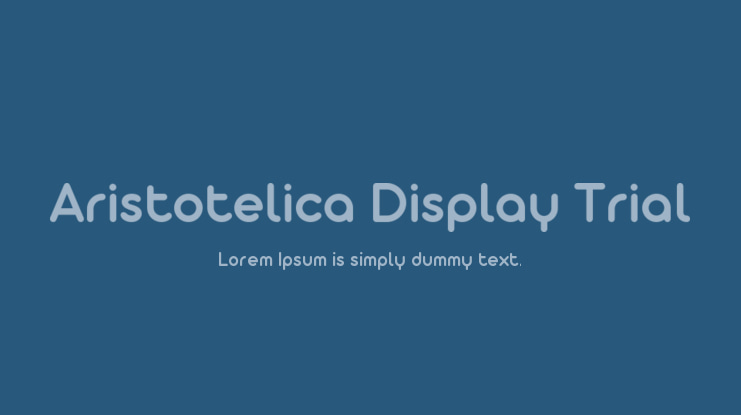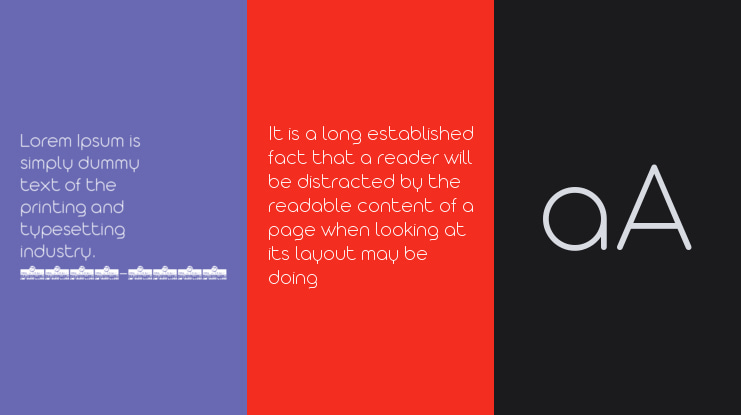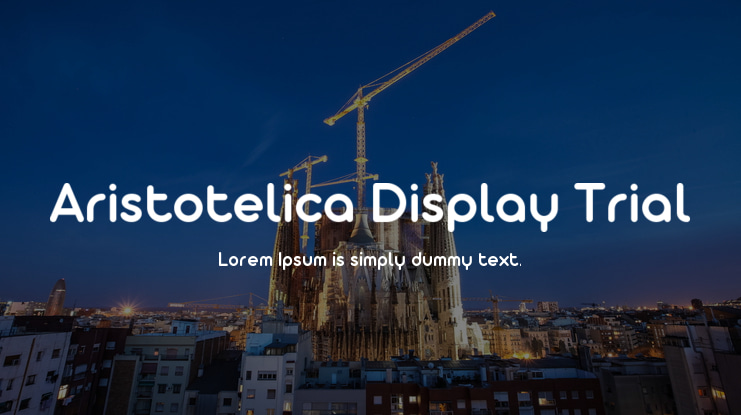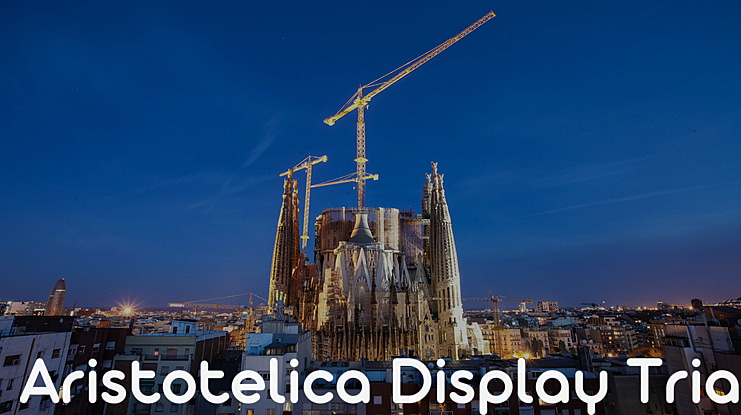
--- Conceived as an exercise in restraint and simplicity, Aristotelica is typographic eulogy to the simple beauty of circular shapes. It shows its strengths mostly in display uses and logo design, with a palette of moods ranging from the stark elegance of the uppercase hairline weights to the playful softness of the lowercase bold weights. All Aristotelica fonts include Greek and Cyrillic alphabets as well as an extended range of latin characters, covering over forty languages. Open type features includes stylistic alternates, old style and lining figures and small caps. A text variant, Aristotelica Text has been developed for seven out of the eight display weights, applying slight corrections to design and metrics to allow for better legibility in paragraph text. The family is further enriched by the inclusion of Aristotelica Icons, a set of matching variable-width monoline icons that can be used to faultlessly match the typeface line width. CONTACT US: website: http://www.zetafonts.com have a question?: